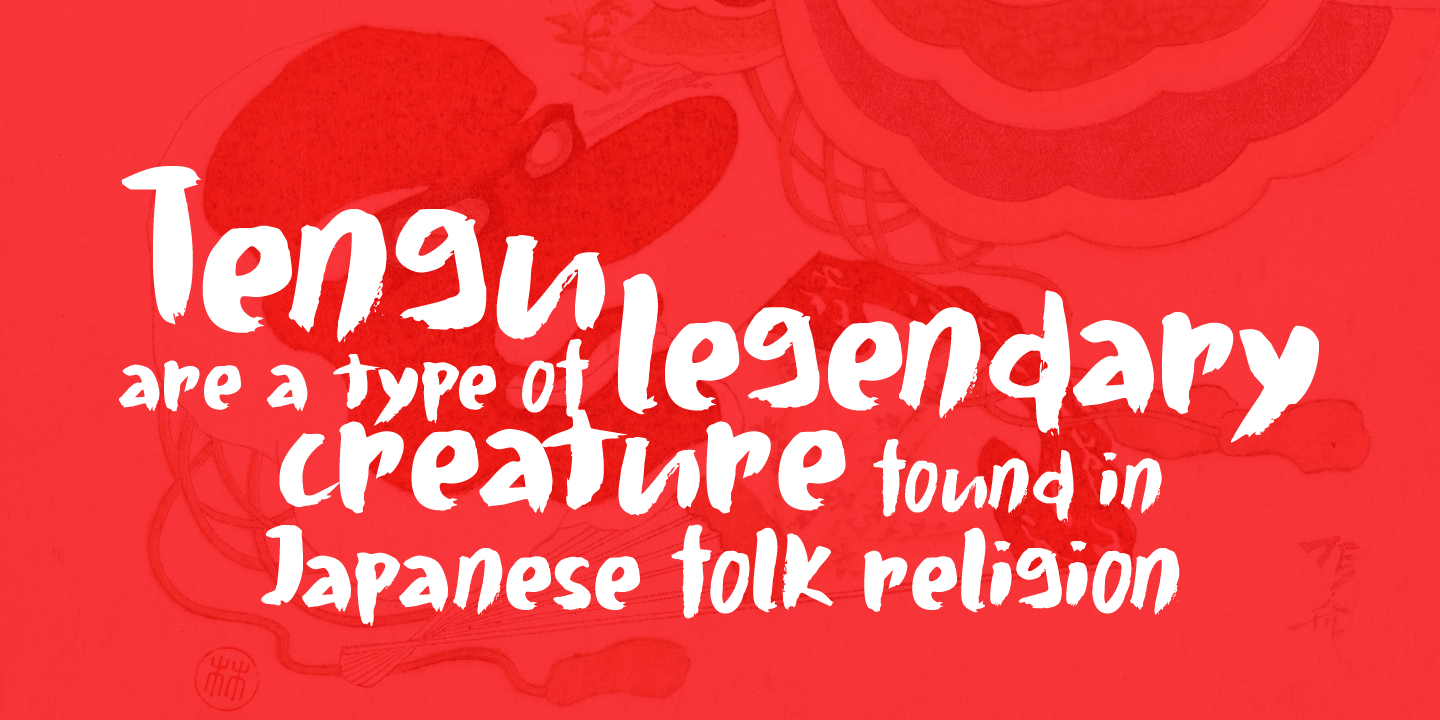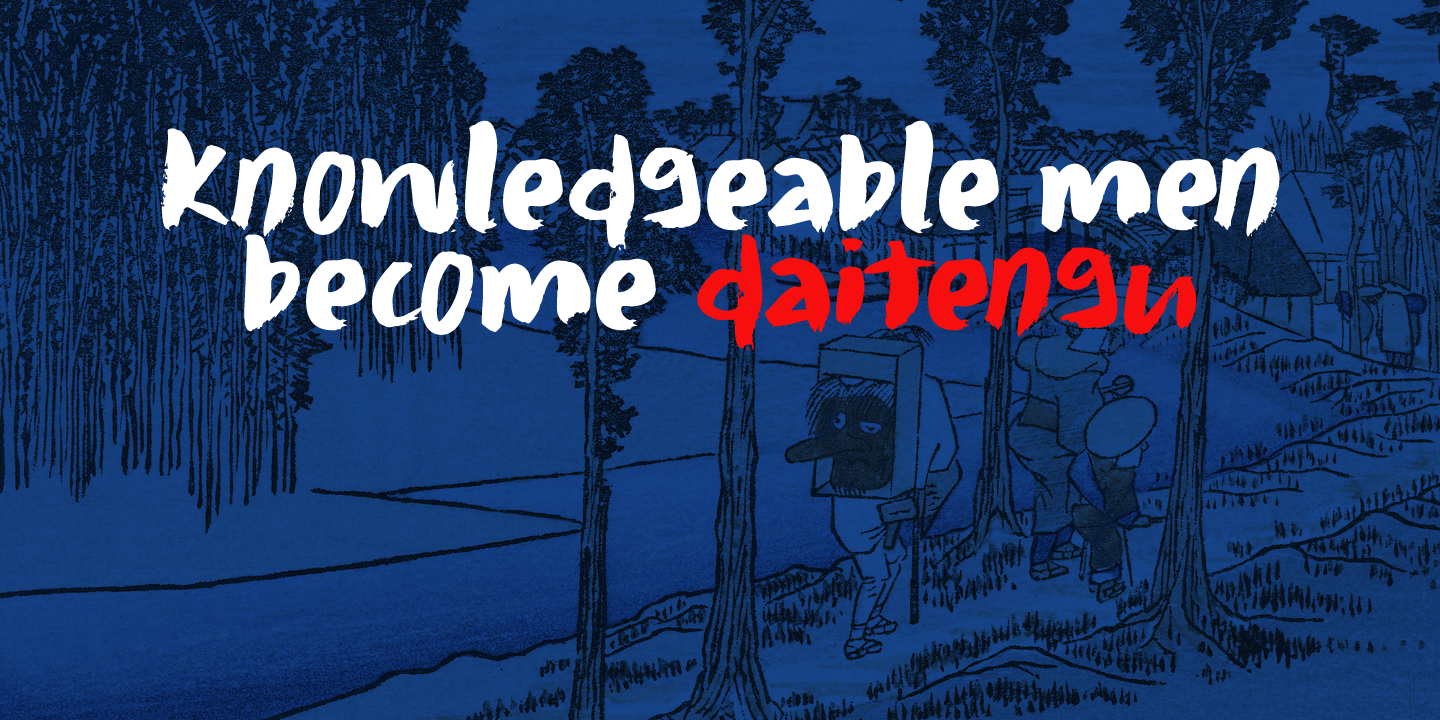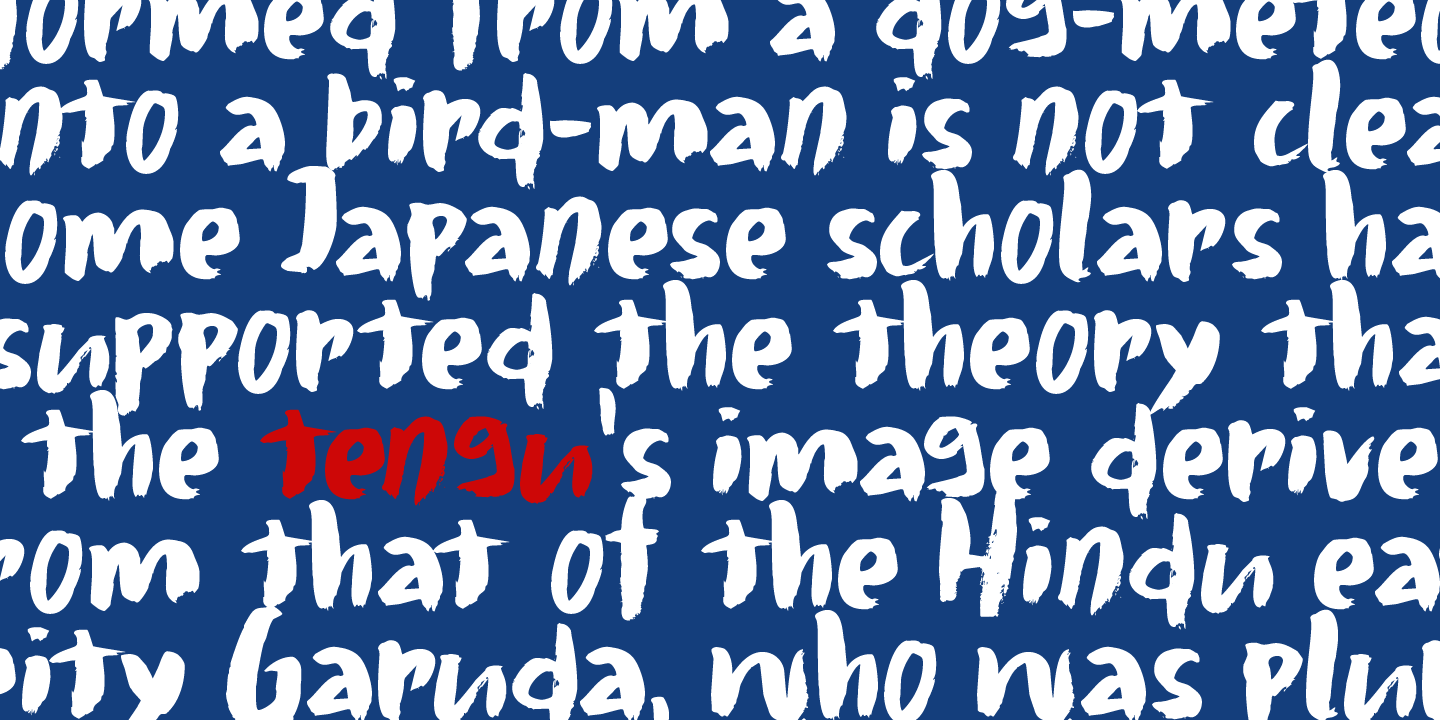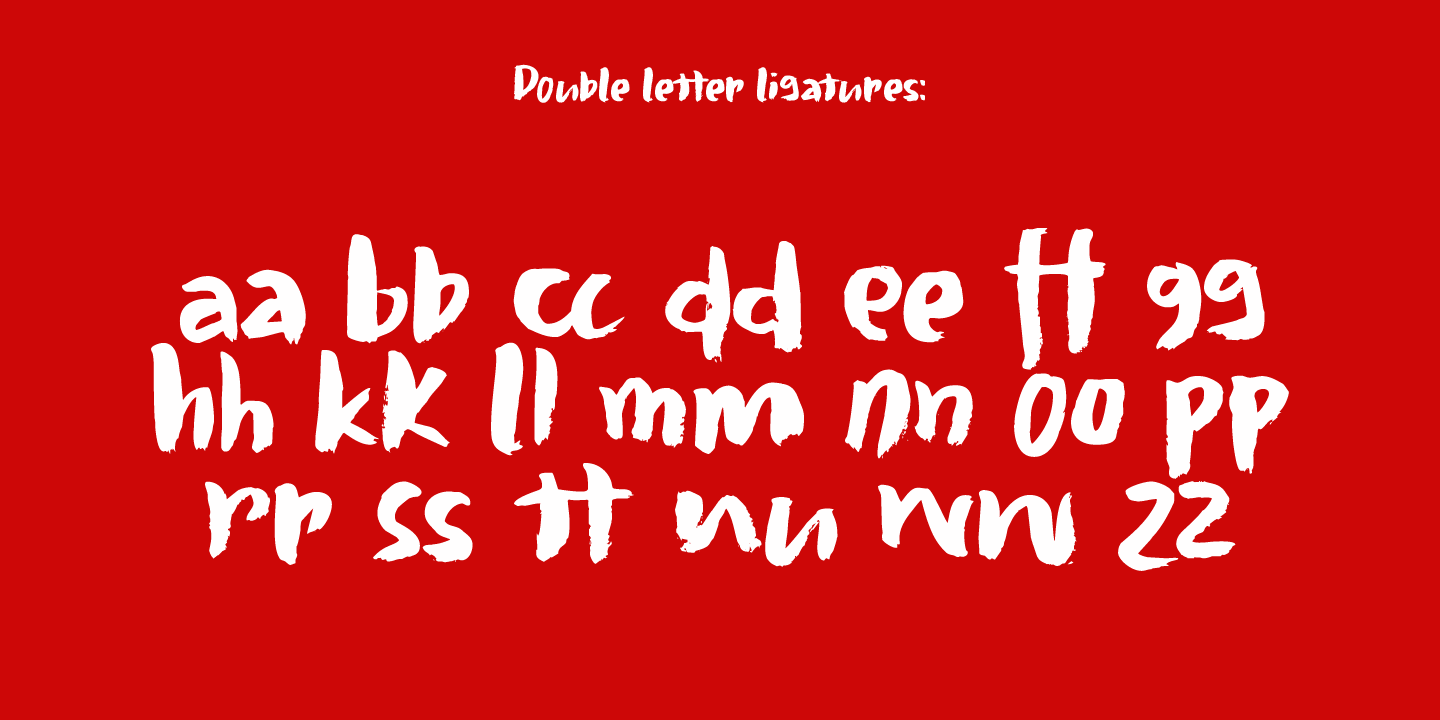
Daitengu
I have always been fascinated by Tengu - a mythical creature from Japan. Tengu are usually depicted with a red face, a very long nose, white moustaches and a funny hat. They used to be regarded as harbingers of war, but over the centuries, their image softened and they became the protective spirits of mountains and forests.
Daitengu means ?greater tengu? and stems from the Genpei J'suiki - an extended version of the ?The Tale of the Heike? - an epic account of the struggle between the Taira and Minamoto clans for control of Japan.
Daitengu is an epic brush font. I made it with a soft brush and China ink (like most of my brush fonts), but instead of forming the glyphs I saw in my head, I let the brush do the work. A more ?zen? approach to brushwork if you will! The result is a messy, organic brush font with a lot of spirit.
Comes with diacritics and double letter ligatures.